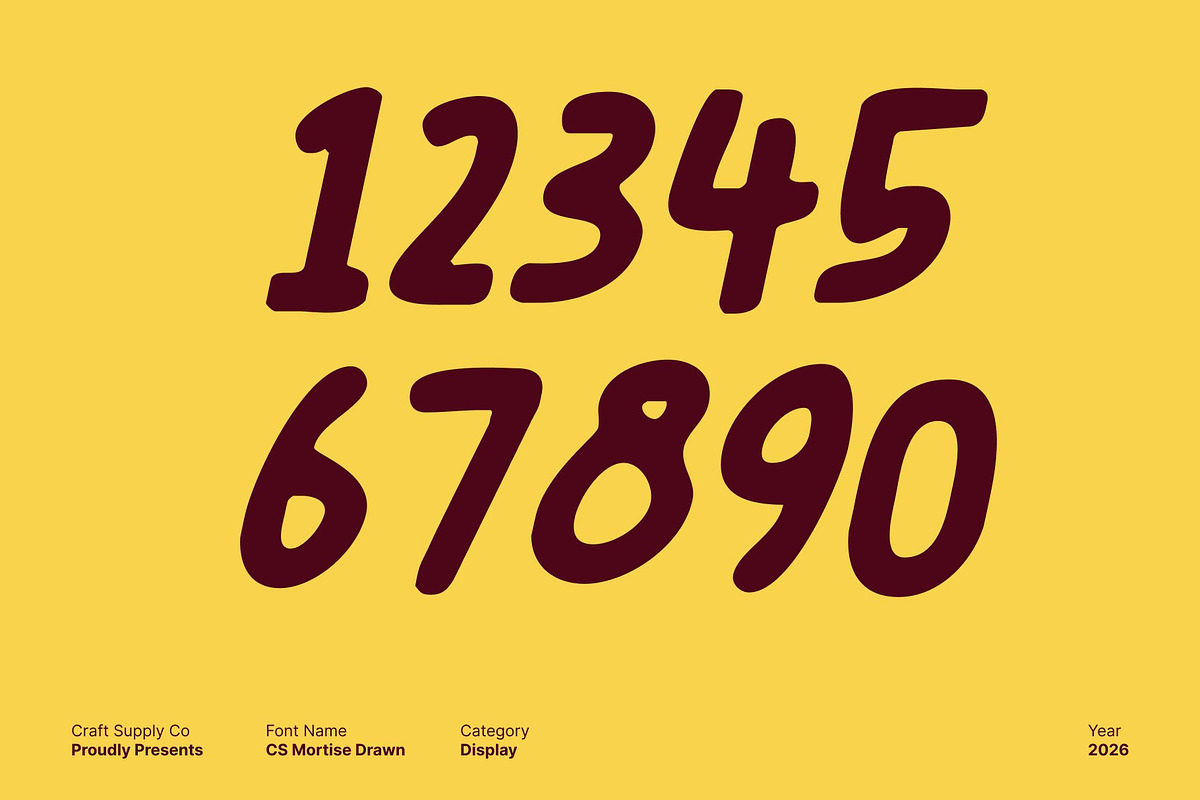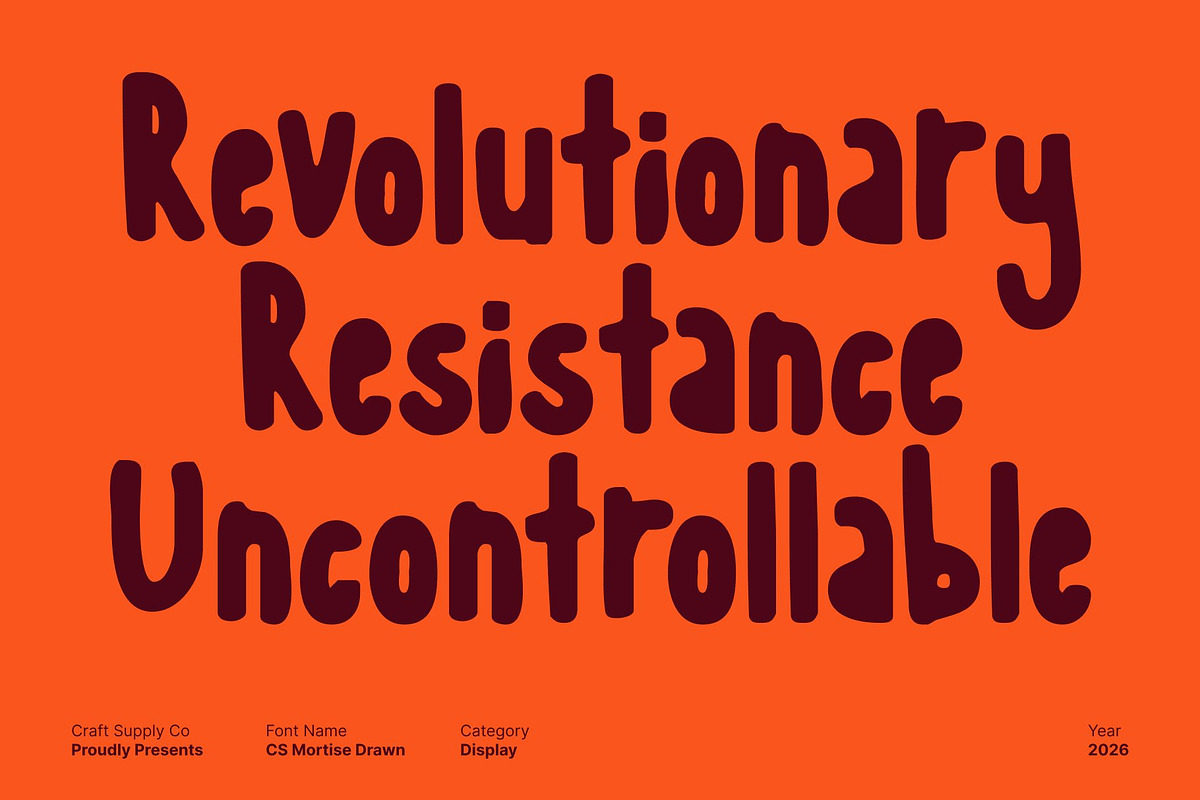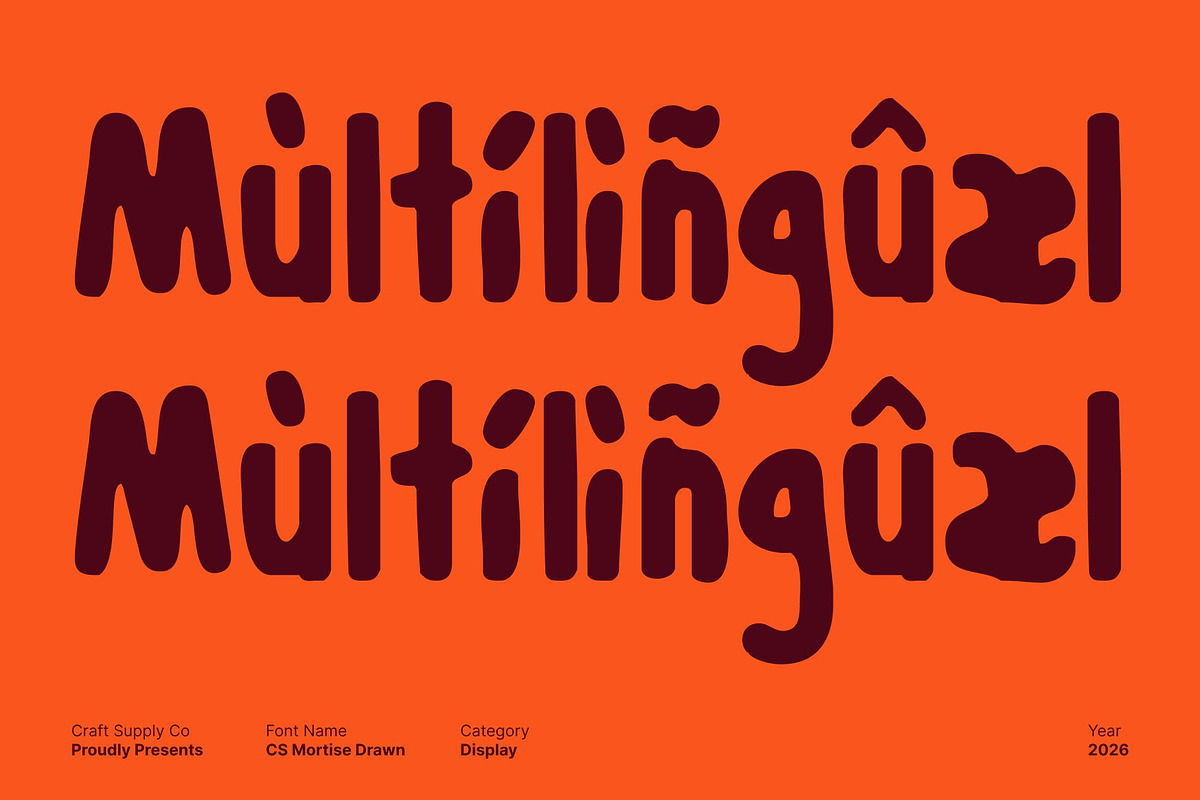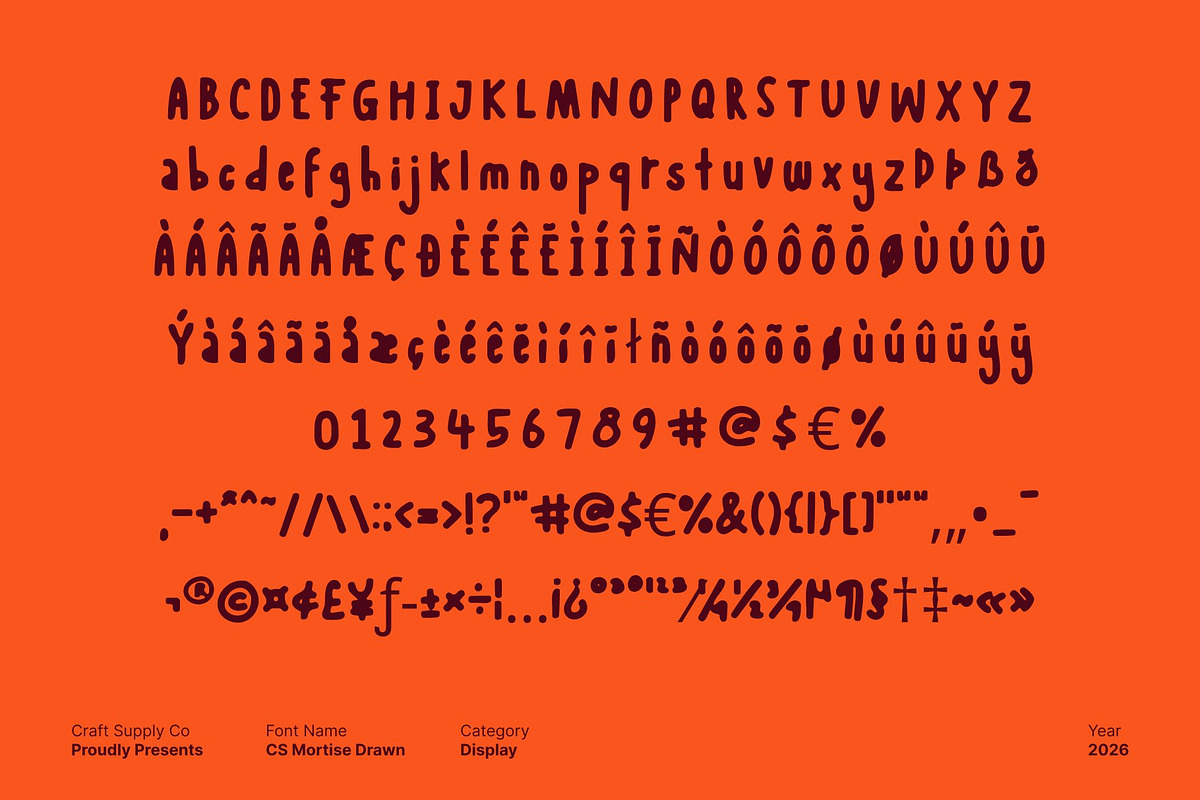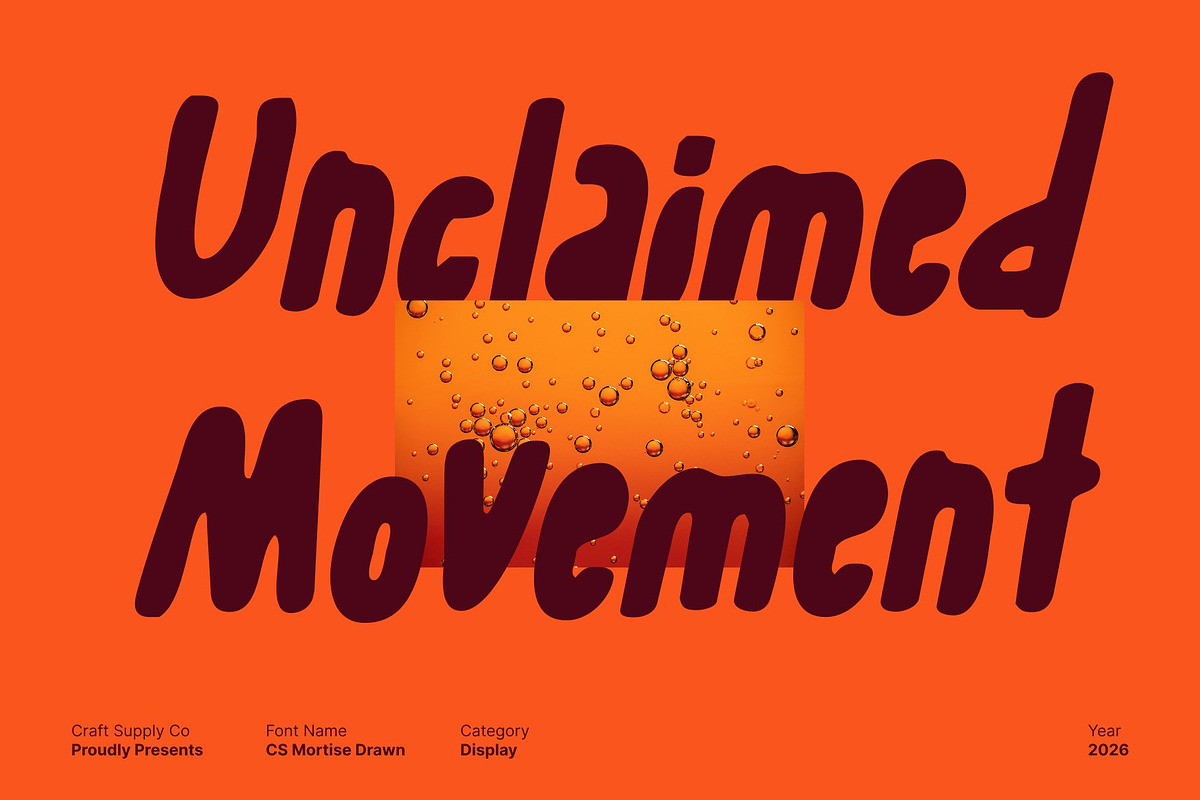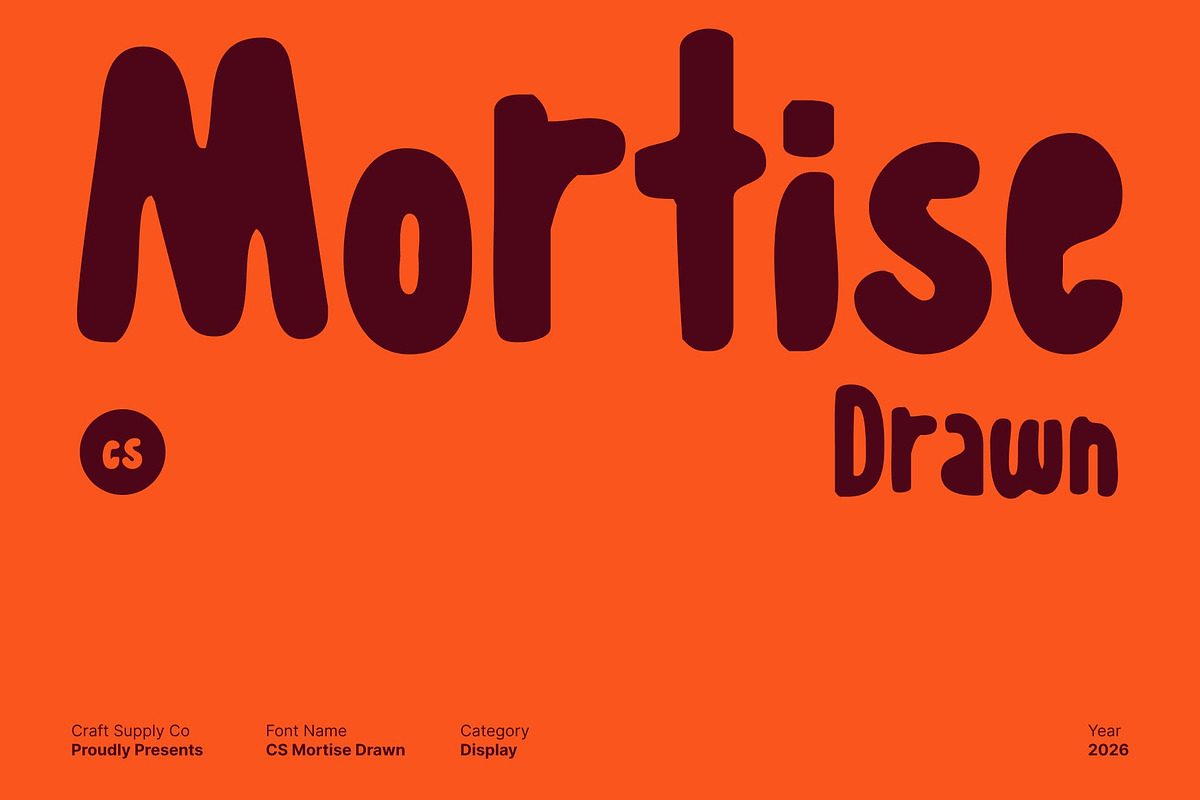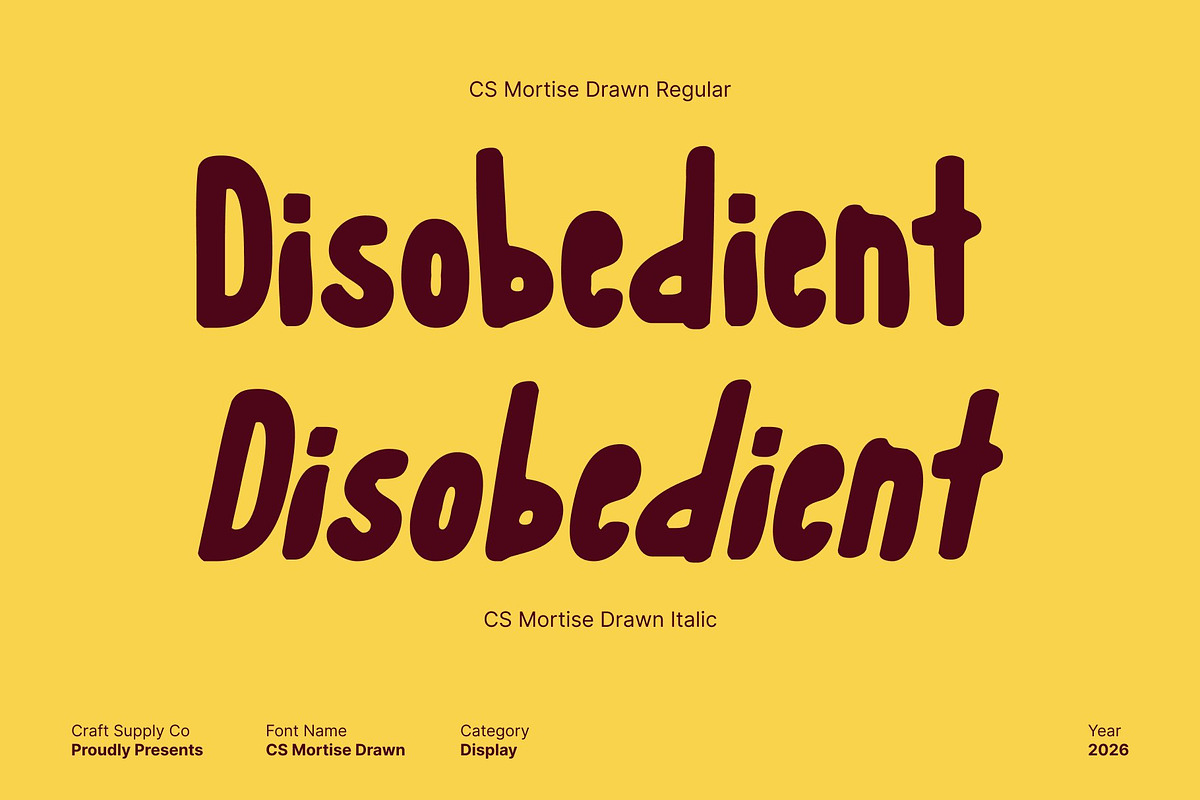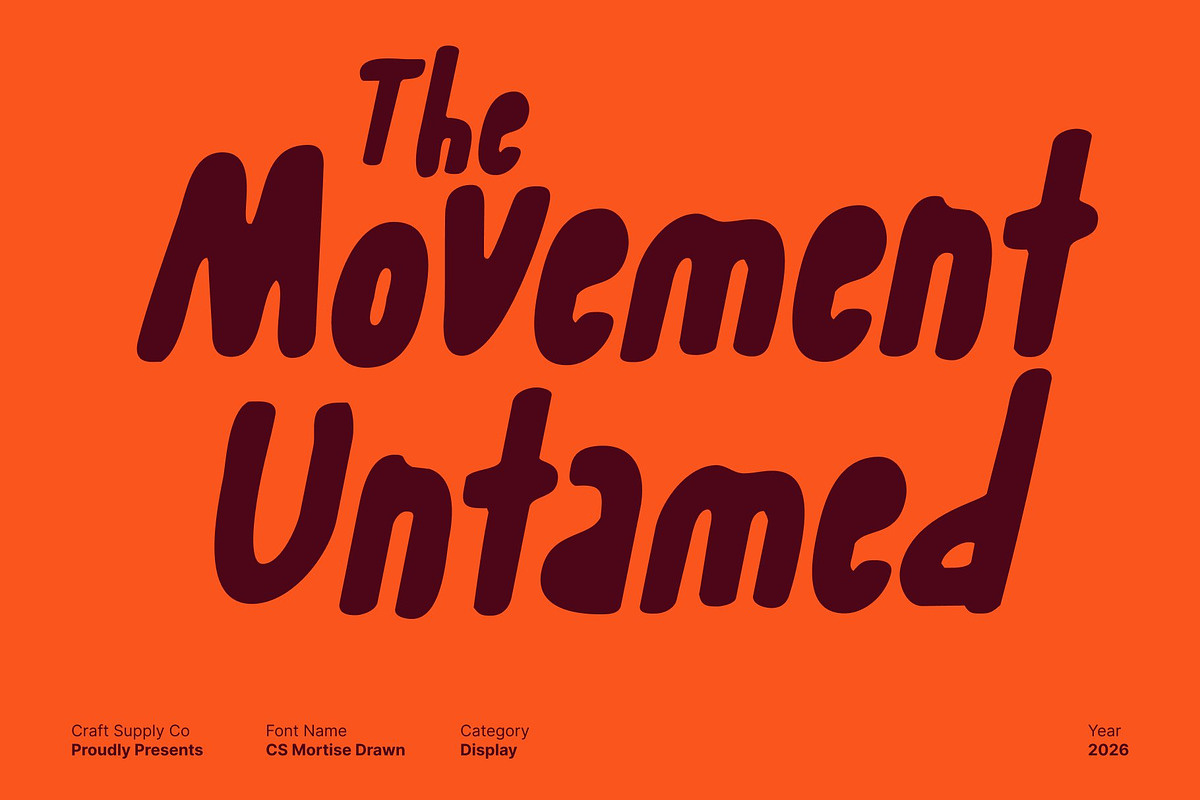
CS Mortise Drawn
CS Mortise Drawn – Casual Handwritten Display Font with Friendly Character
Handwritten Display Font with Warm Personality This is a friendly and expressive handwritten-style display font designed to bring warmth and casual charm to your typography. Its hand-drawn details give every character a personal, human touch, making text feel approachable, relaxed, and engaging.
Organic Forms for an Inviting Look Fluid strokes and natural letterforms define the character of this font. Rounded edges and lively movement create an organic rhythm that feels playful without being overwhelming. This approachable design makes the font perfect for projects that aim to connect with audiences on a more personal level.
Expressive Energy for Creative Projects With its dynamic and expressive style, this font adds energy and personality to posters, social media graphics, lifestyle branding, and editorial layouts. The drawn nuances ensure your message feels authentic and full of character, rather than rigid or formal.
Versatile for Casual and Creative Applications Balancing friendliness with flexibility, this font works beautifully across invitations, packaging, posters, and playful editorial designs. Its handcrafted aesthetic enhances both professional and creative compositions, making it a reliable choice for designers seeking warmth, authenticity, and expressive charm.
- CS Mortise Drawn Regular
- CS Mortise Drawn Italic